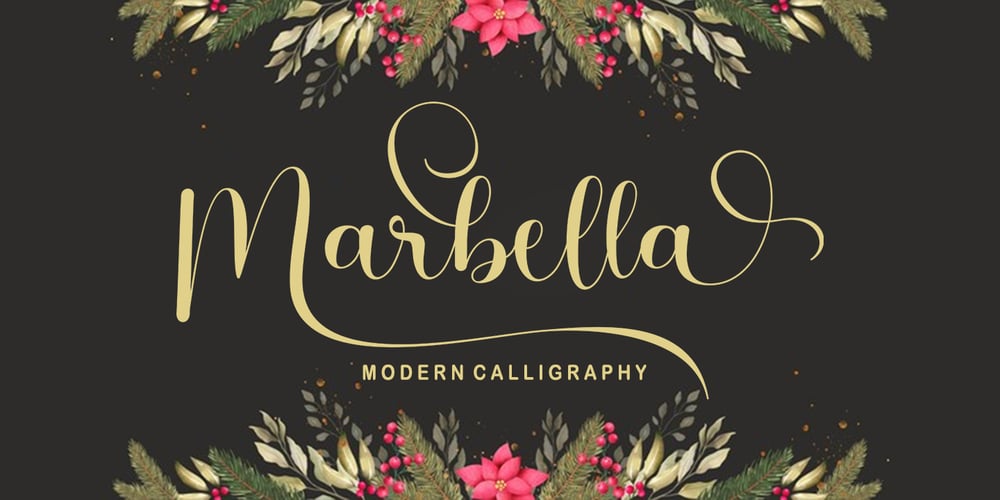
Marbella Script Font Family was designed by Mu Fazzal and published by Bosstypestudio. Marbella Script contains 1 styles and family package options. Marbella Script with a smooth handwriting style and very pretty and lovely. Marbella Script is perfect for branding projects, home appliance design, product packaging, use in business cards, invitation cards, etc. Just like a stylish text overlay to a wallpaper or anything that needs a touch of love.